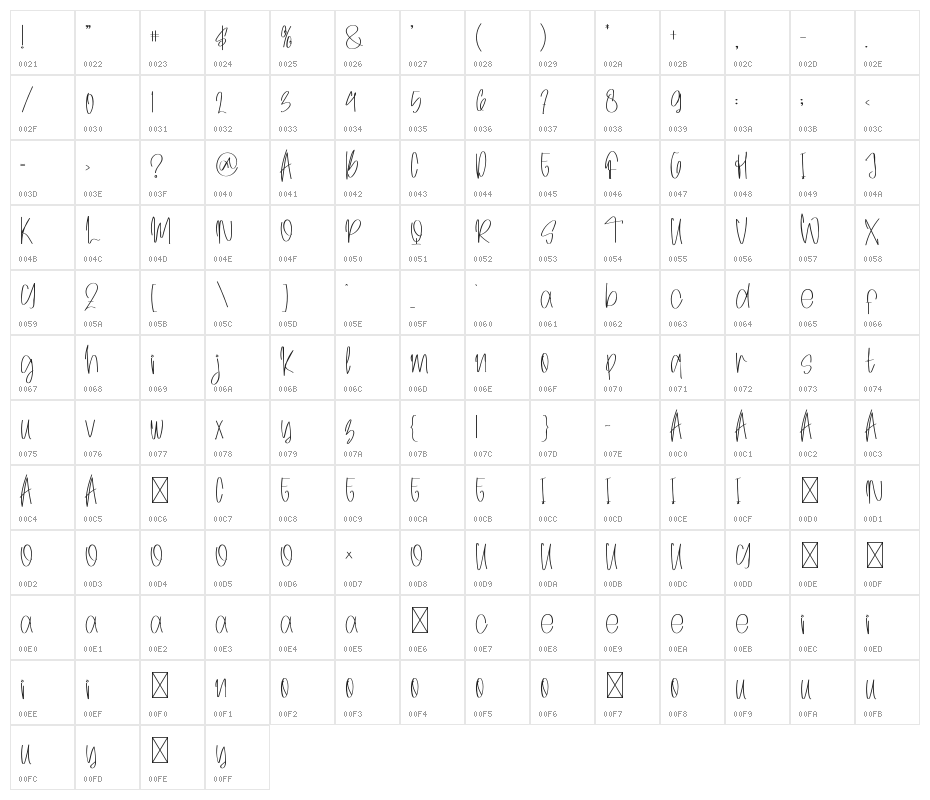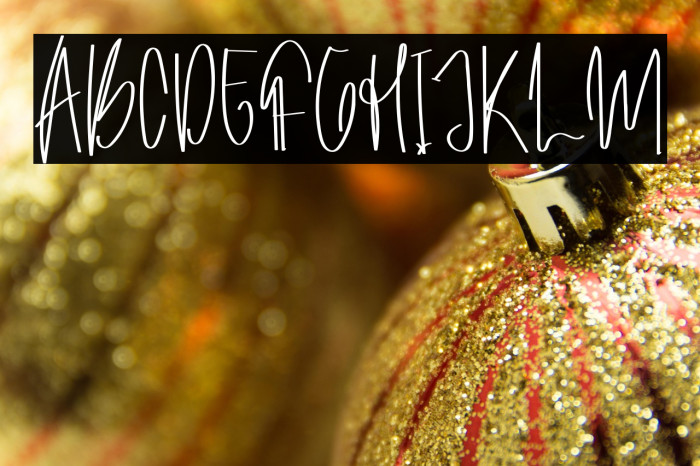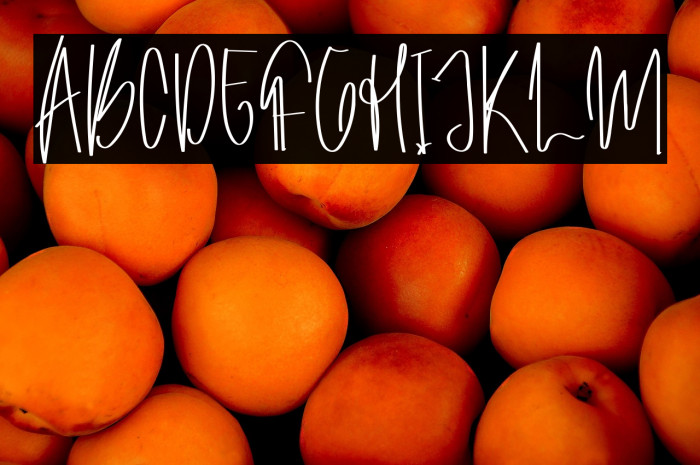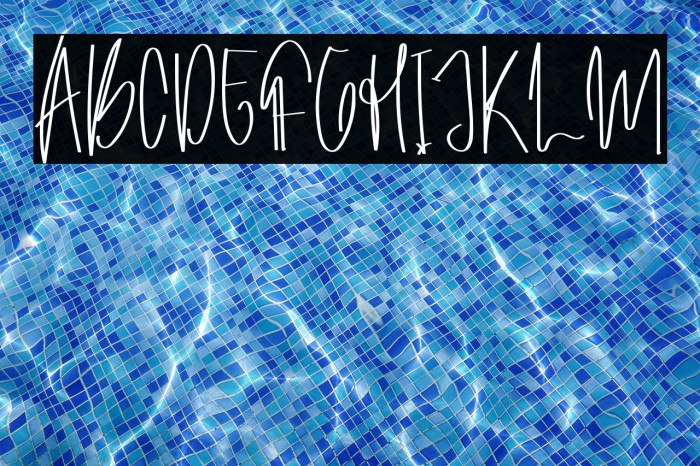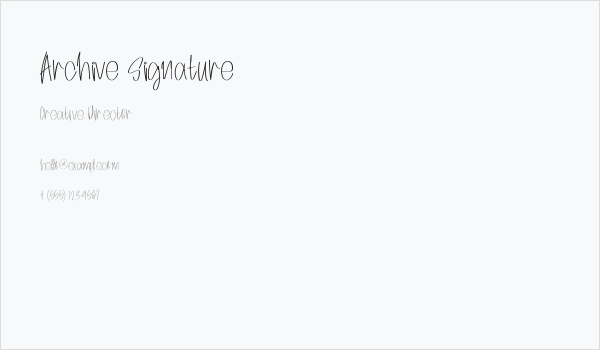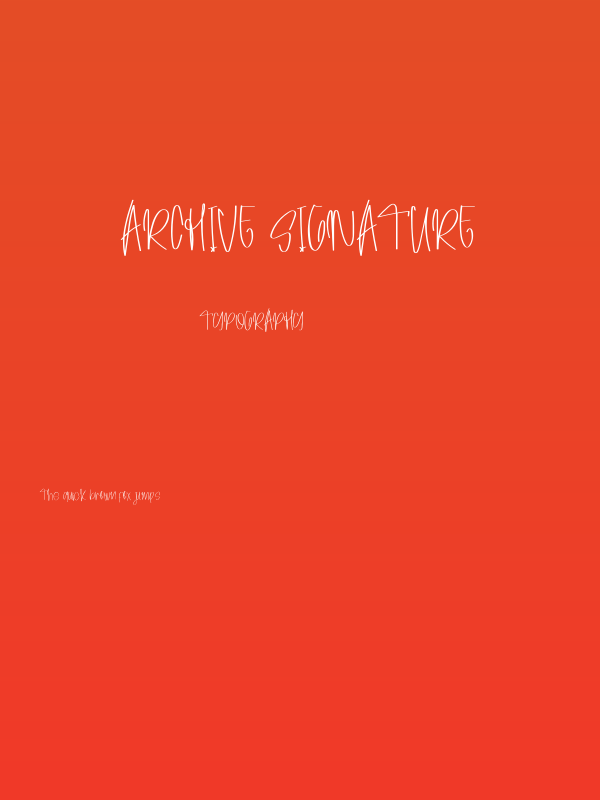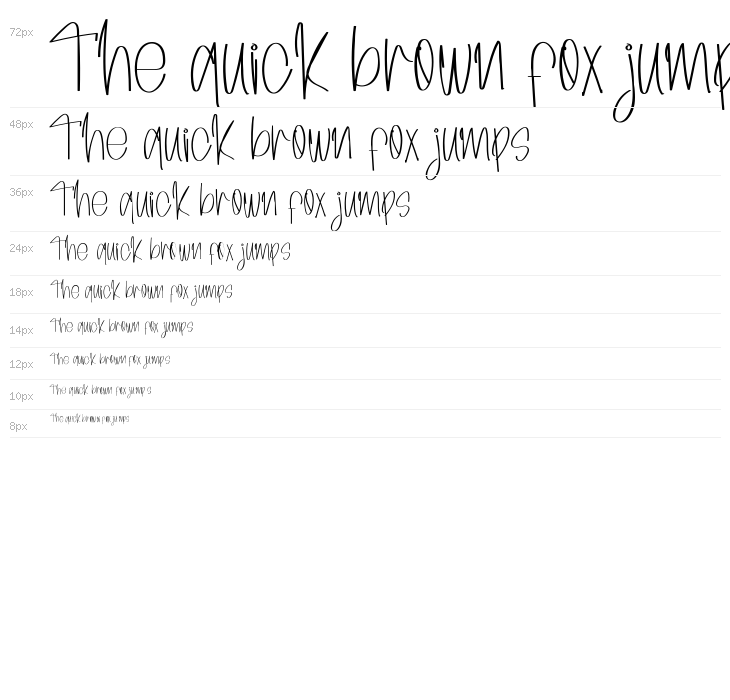
Archive Signature Font
Archive Signature Description
This font features a playful and whimsical handwritten style, characterized by its tall, narrow letterforms and irregular strokes. The letters have a casual, free-flowing appearance, with varying stroke thickness that adds a dynamic and lively feel. The uppercase and lowercase letters maintain a consistent style, with some letters featuring unique loops and curves that enhance its artistic flair. The numerals and special characters are designed to match the overall aesthetic, making it suitable for creative and informal applications.
| Overall Style | Casual, Artistic |
| Use Case | Logos, Invitations, Creative projects |
| Proposed Projects | Ideal for greeting cards, invitations, personal branding, and creative projects that require a casual and artistic touch. |